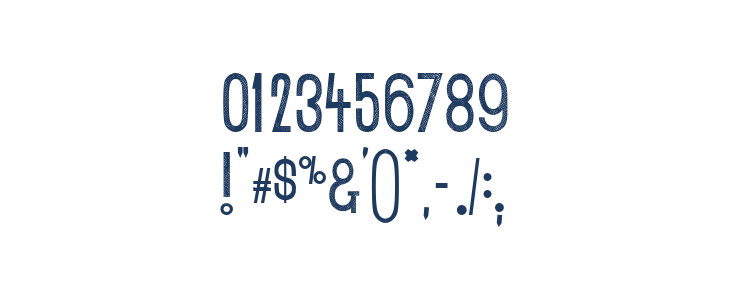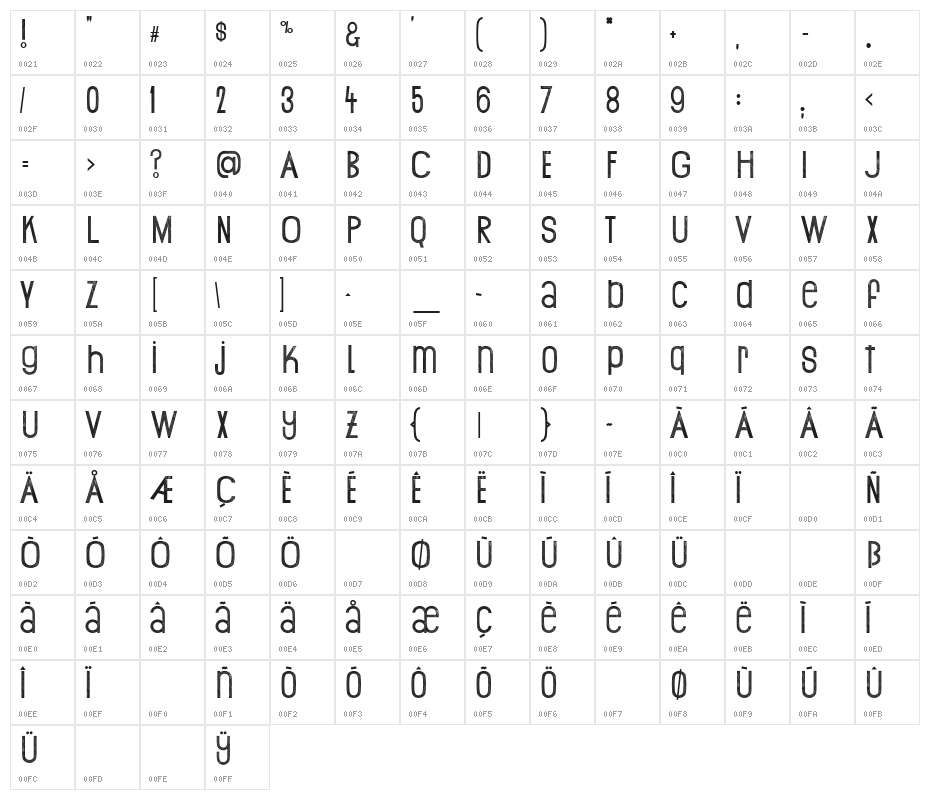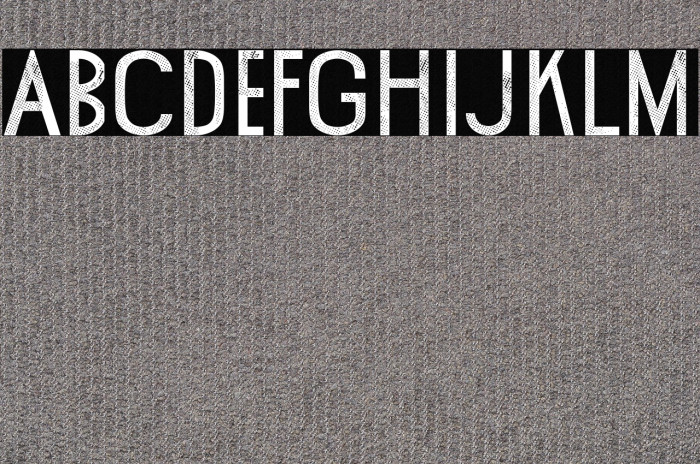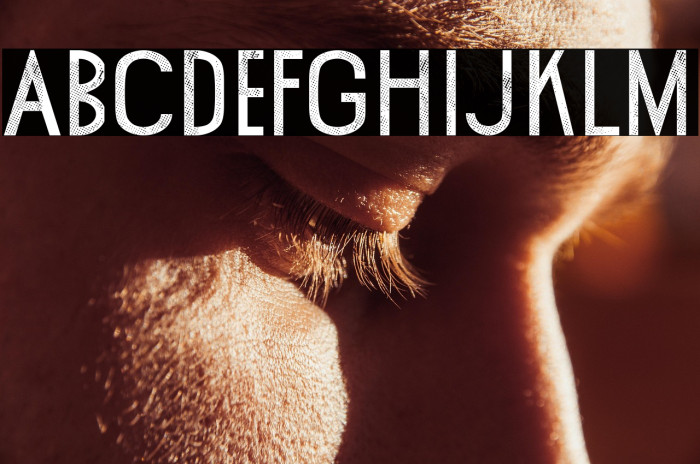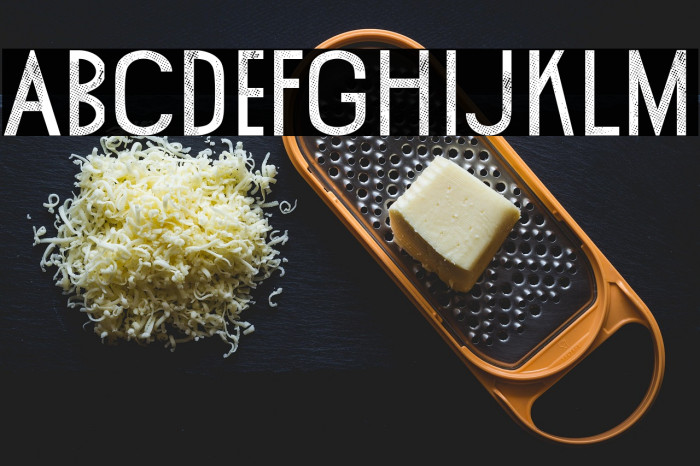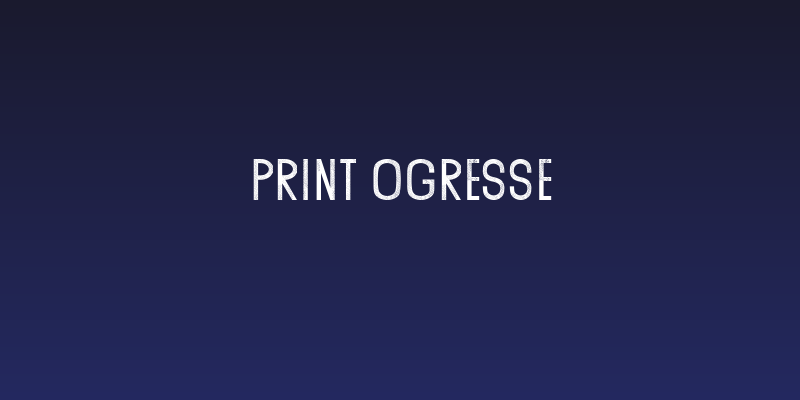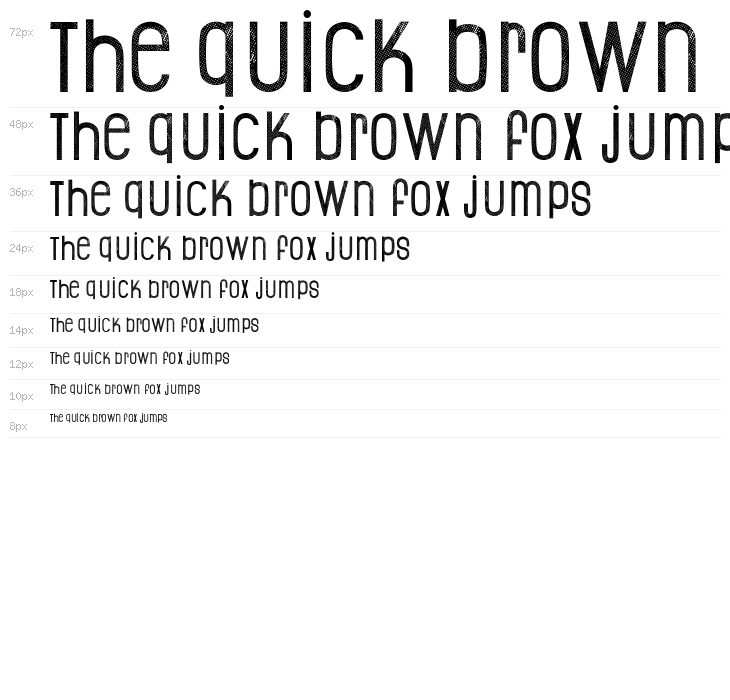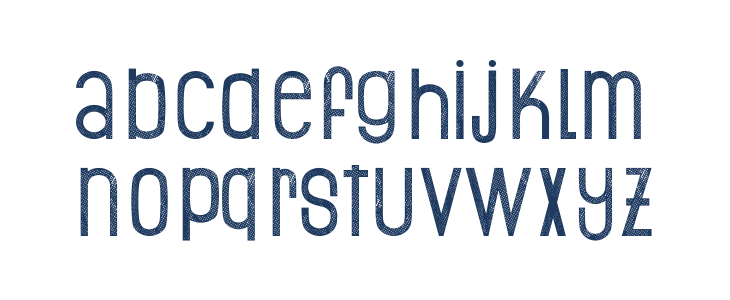
Print Ogresse Font
Print Ogresse Description
This font features a bold and modern design with a slightly condensed structure. The uppercase letters are tall and commanding, while the lowercase letters maintain a consistent height, offering a balanced look. The characters have a subtle texture that adds depth and interest, making it stand out in both digital and print formats. The numerals are clear and legible, matching the overall style of the alphabet. Special characters are included, providing versatility for various uses. The font's clean lines and geometric shapes make it suitable for contemporary design projects.